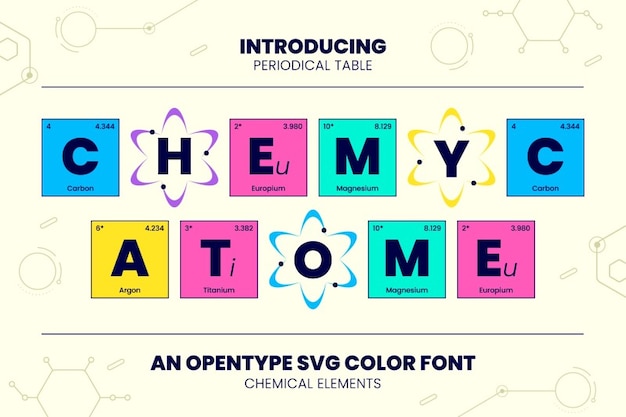
Chemyc Atome
Chemyc Atome Font
Chermyc Atome is a quirky modular typeface inspired by scientific charts and element grids. Each letter looks like a colorful building block from the periodic table, ideal for educational visuals, STEM posters, or anything that wants to fuse play with structure.